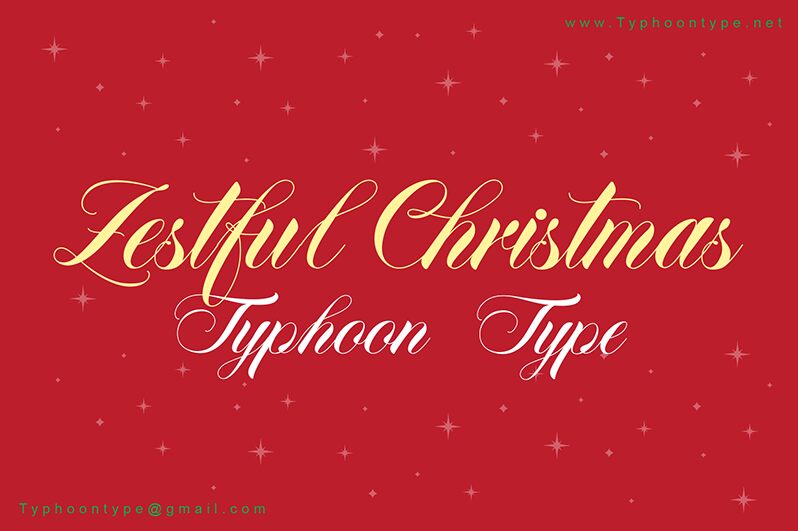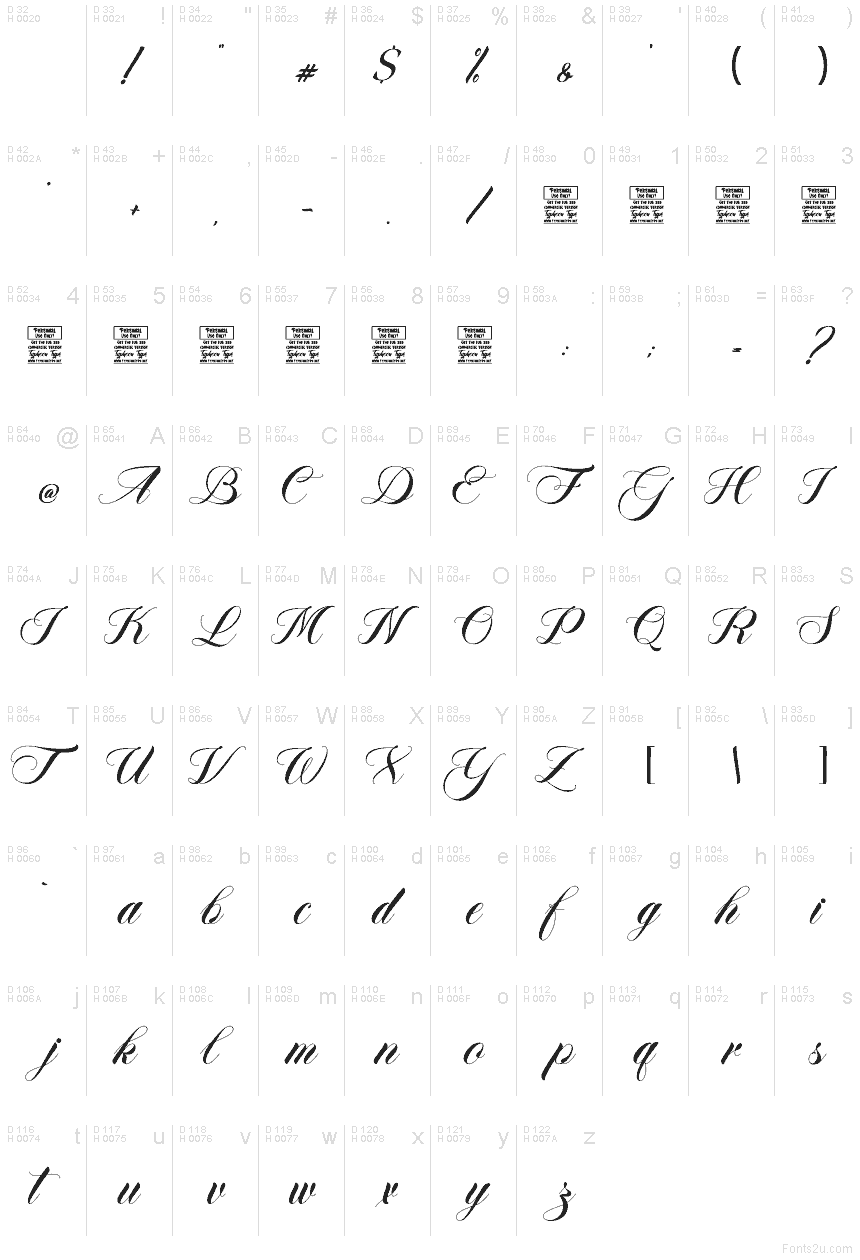
Zestful Christmas-Personal Use
Zestful Christmas font by Typhoon Type - Suthi Srisopha is a free calligraphy typeface that captures the sweep of handwritten holiday greetings. Long, swirling strokes spill past the x-height like trailing ribbons, while the thin, inky lines keep it light and elegant instead of heavy or cartoonish. It feels like it was written with a quick, confident pen on smooth card stock, giving your designs a warm, personal touch.
Using Zestful Christmas, titles and short phrases instantly look like custom lettering, which works beautifully for greeting cards, gift tags, seasonal logos, social media posts, packaging, and event invitations. This free font really shines when you give it room to breathe in large sizes; pair it with a simple sans-serif for body text to keep everything readable and balanced.